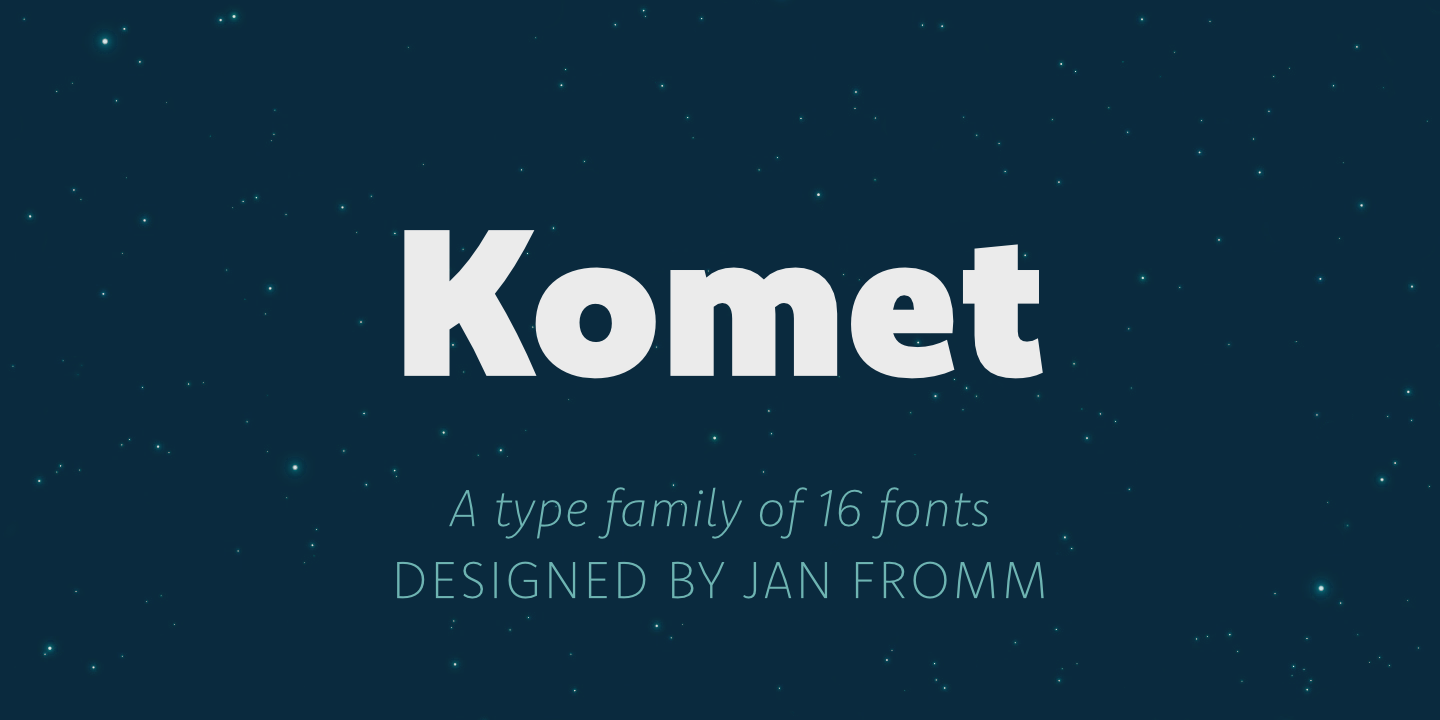
Komet Font is ideal for space exploration companies, futuristic tech startups, science fiction movie titles, aerospace industry branding, planetarium exhibition materials, cosmic-themed entertainment venues, astronomical observatory signage, and cutting-edge innovation communications.
What makes Komet Font truly exciting is its stellar ability to capture the infinite wonder and dynamic energy of cosmic exploration through sleekly designed letterforms that embody the speed, precision, and boundless possibilities of space travel and celestial discovery. This extraordinary typeface features streamlined characteristics with cosmic-inspired elements that instantly convey innovation, velocity, and scientific advancement, making it the perfect choice for brands and projects that push boundaries, explore new frontiers, and communicate with audiences fascinated by space exploration and technological breakthroughs.
The Komet Font family encompasses thin, light, regular, bold, and ultra-bold weights, each designed with aerodynamic precision, along with condensed variants optimized for space-efficient applications, providing designers with comprehensive tools for creating stellar brand experiences and cosmic communications that resonate with tech-savvy audiences seeking innovation and discovery.
Aerospace companies and technology innovators will discover that Komet Font Free Download delivers the futuristic presence and scientific credibility needed to communicate effectively with audiences passionate about space exploration and technological advancement. This versatile typeface excels in both high-tech interface applications and bold marketing campaigns, maintaining its cosmic character while ensuring optimal performance across all innovative contexts.
The font's precisely engineered construction demonstrates exceptional attention to both aerodynamic aesthetics and functional performance, with streamlined proportions that ensure commanding presence while maintaining superior legibility in high-tech environments. From mission control displays to space tourism marketing, this cosmic typeface maintains its stellar appeal while providing the reliability needed for critical aerospace applications. Innovation brands appreciate how this font effortlessly communicates exploration, discovery, and distinguished American space-age design excellence through superior cosmic typography.